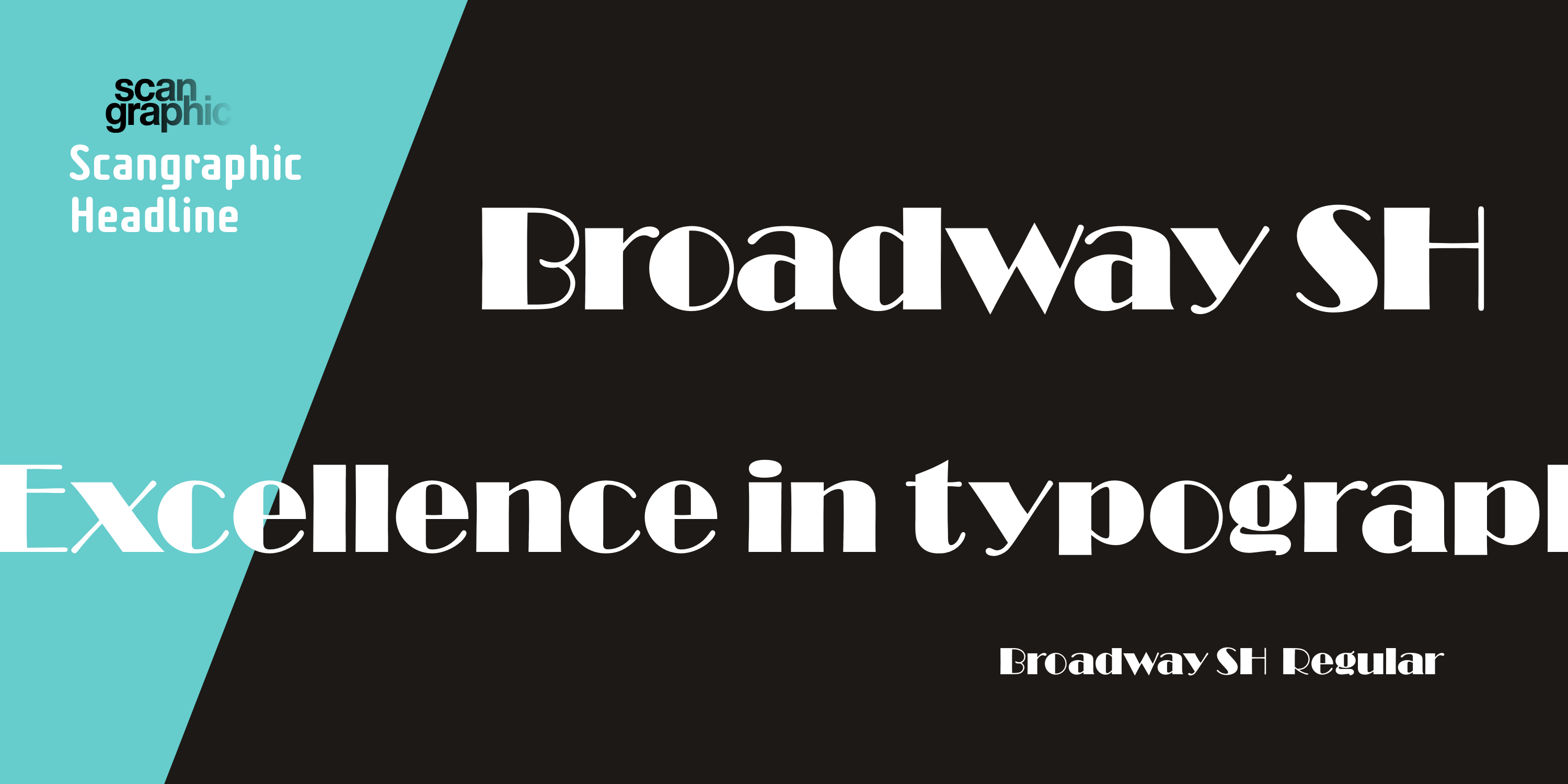
Broadway SH Font Free Download is a striking and stylish display typeface that captures the glamour of vintage theater and 1920s Art Deco design. With its bold letterforms, high contrast strokes, and dramatic flair, Broadway SH is perfect for headlines, logos, posters, event invitations, and branding that calls for a touch of retro sophistication.
Its theatrical presence makes it an excellent choice for projects that want to stand out. Whether you’re channeling the golden age of jazz or adding a bit of Gatsby-inspired elegance, Broadway SH Font Free Download delivers timeless charm with a modern edge.
Add drama, elegance, and vintage glam to your typography with Broadway SH Font Free Download. Perfect for those who want their designs to perform on center stage.